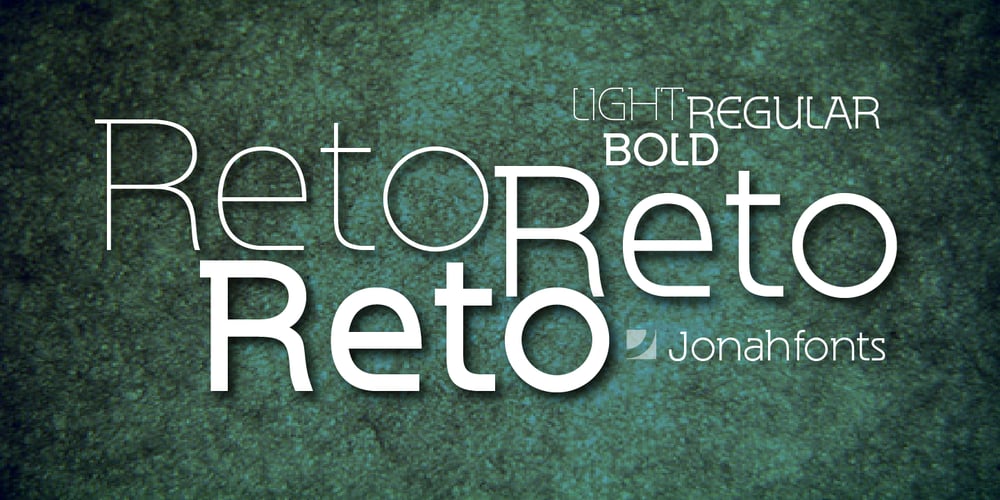
Reto Font Family was designed by John Nahmias and published by Jonahfonts. Reto contains 6 styles and family package options. A unique semi-sans-serif font specifically designed for all texts in a variety of applications.Recommended for posters, titles, book covers, greeting cards, signage, packaging, invitations, magazine articles and advertising.